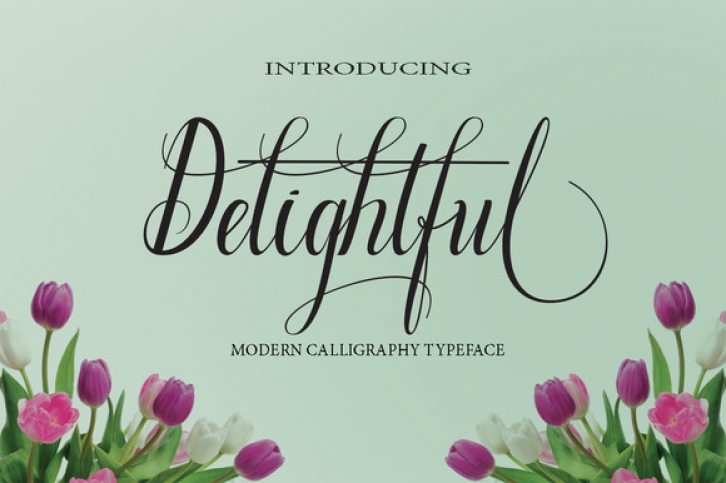
Delightful is a stunning handwritten font that draws inspiration from modern calligraphy fonts.
The font was created by hand and has a very natural, easy going style. Great for creating personal designs.